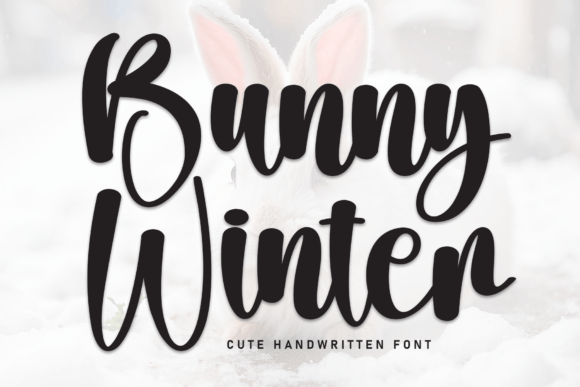
The Bunny Winter Font: A Timeless Choice for Creative Designs
As designers, we’ve all been there – stuck on a project, searching for the perfect font to bring our vision to life. I recall working on a branding project for a client’s winter-themed business, and I just couldn’t find the right fit. That’s when I stumbled upon the lovely Bunny Winter Font. It’s a game-changer! In this article, I’ll share my experience with this beautiful handwritten font, its features, and how to make the most of it in your designs.
A Personal Review: What I Love About Bunny Winter Font
I was immediately drawn to the Bunny Winter Font because of its unique, timeless feel. Here are some things I love about it:
- ✨ Unique and beautiful touch: Every letter has a distinct character that adds a personal touch to your designs.
- ✅ Handwritten feel: The font has a warm, organic feel that’s perfect for creating eye-catching logos, branding, and quotes.
- 🎨 Versatility: Bunny Winter Font is suitable for a wide range of design projects, from digital graphics to print materials.
While I adore the Bunny Winter Font, there are a few things to keep in mind:
- 🤔 Limited availability of stylistic alternates: While the font has some alternate characters, it could benefit from more options.
- ⚠️ Occasional kerning issues: As with any font, you may need to adjust kerning for optimal results.
The Story Behind Bunny Winter Font
The Bunny Winter Font was created with love and care by a talented designer who wanted to craft a unique, timeless font. Inspired by the beauty of winter and the playfulness of bunnies, this font is perfect for designers who want to add a touch of personality to their work.
| Font Name | Bunny Winter Font |
| Is Bunny Winter Font suitable for body text? | While Bunny Winter Font is beautiful, it’s best suited for headings and titles. For body text, consider a clearer, more legible font. |